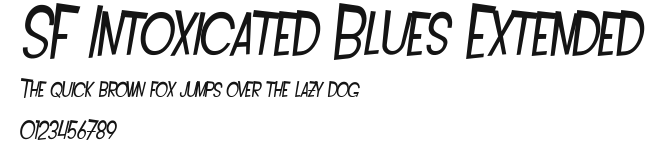
• Font Name: SF Intoxicated Blues Extended
• Font Style: Oblique
• Designer: ShyFonts Type Foundry
About SF Intoxicated Blues Extended.ttf
SF Intoxicated Blues Extended.ttf is a modern, elegant sans-serif font designed for ultimate readability and visual harmony. Perfect for branding, headlines, web design, and print materials.